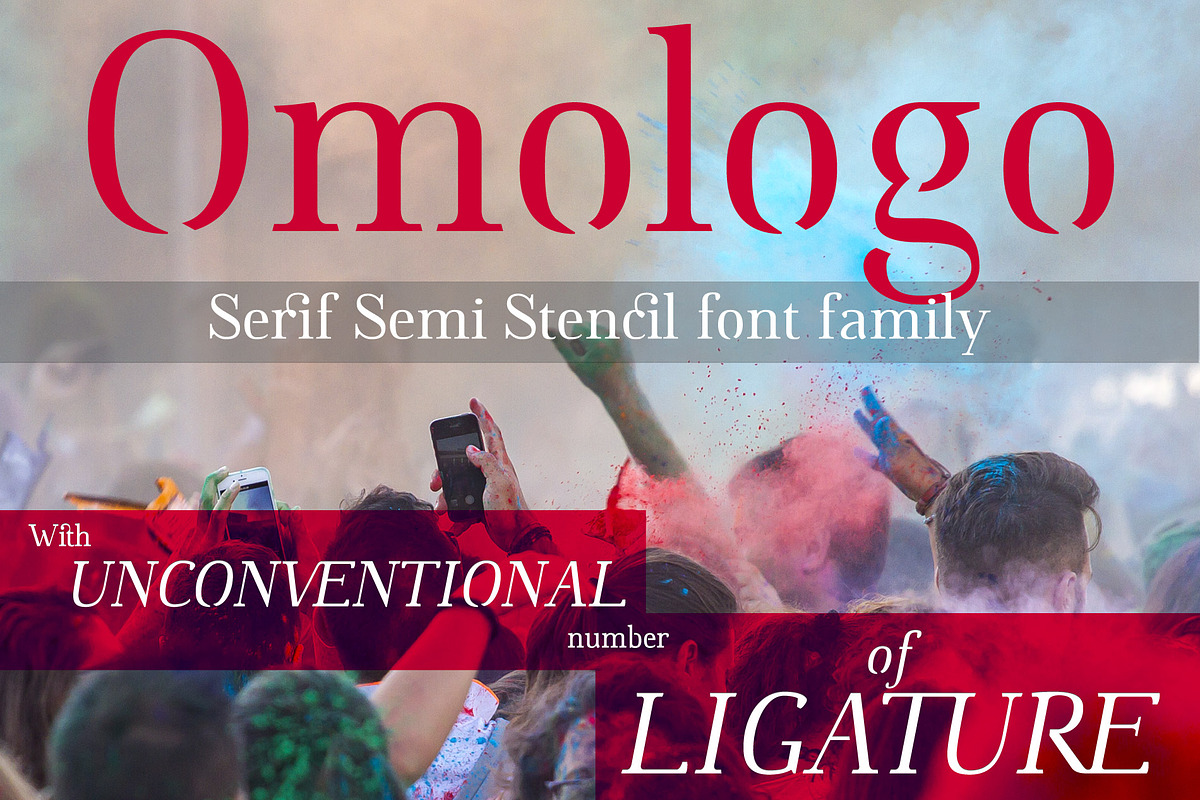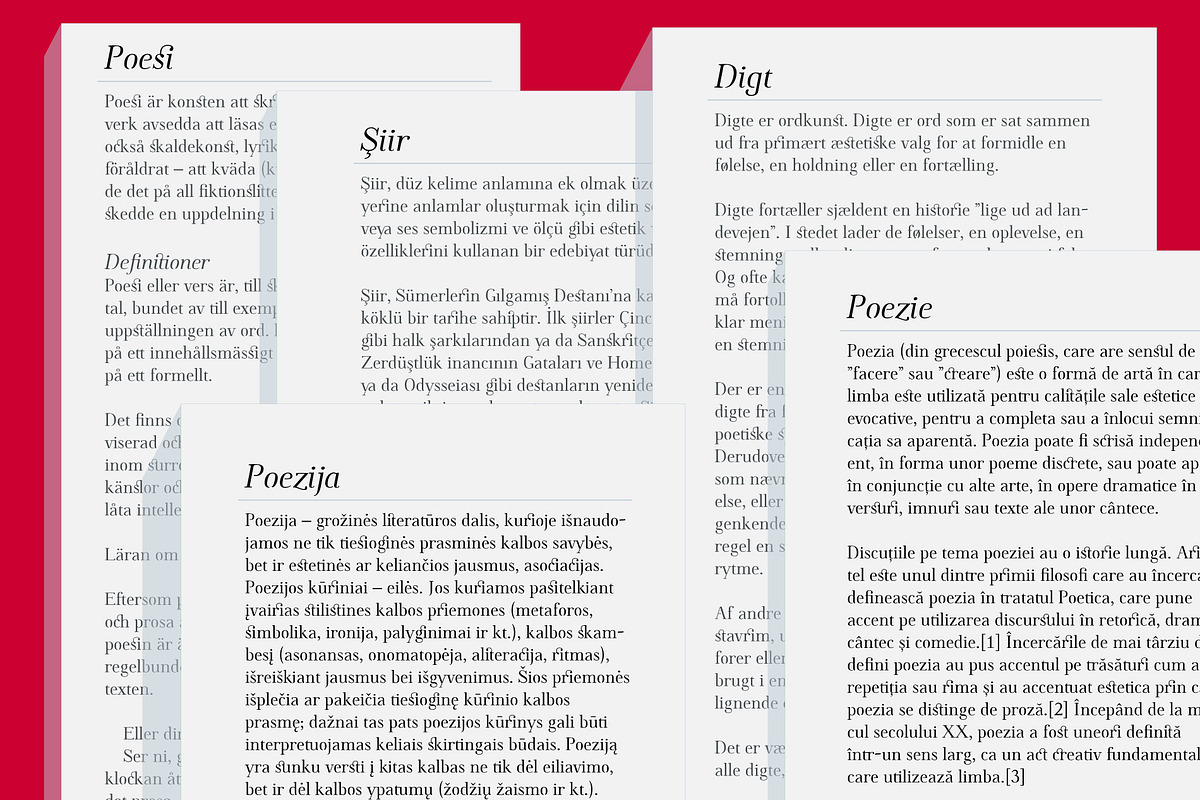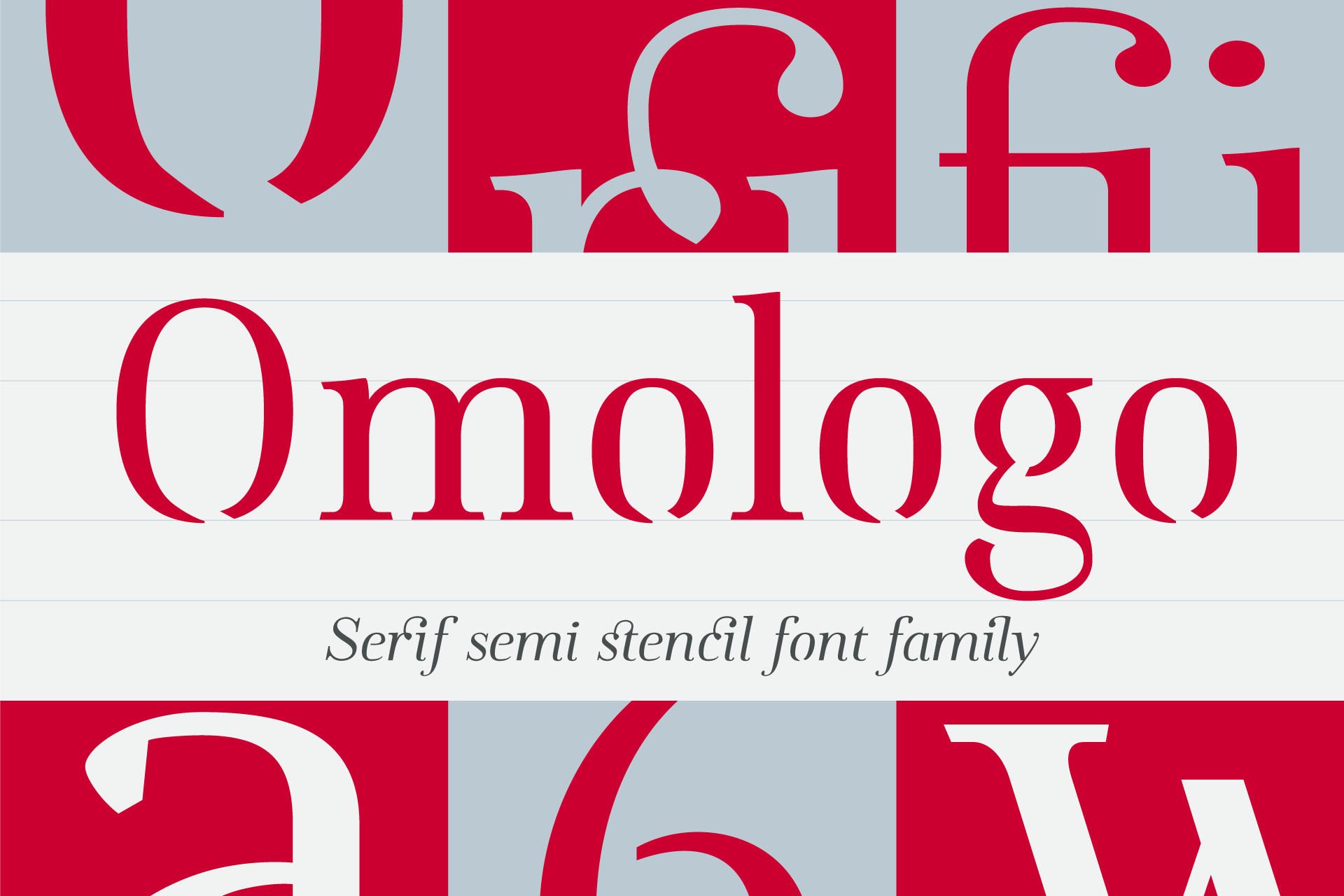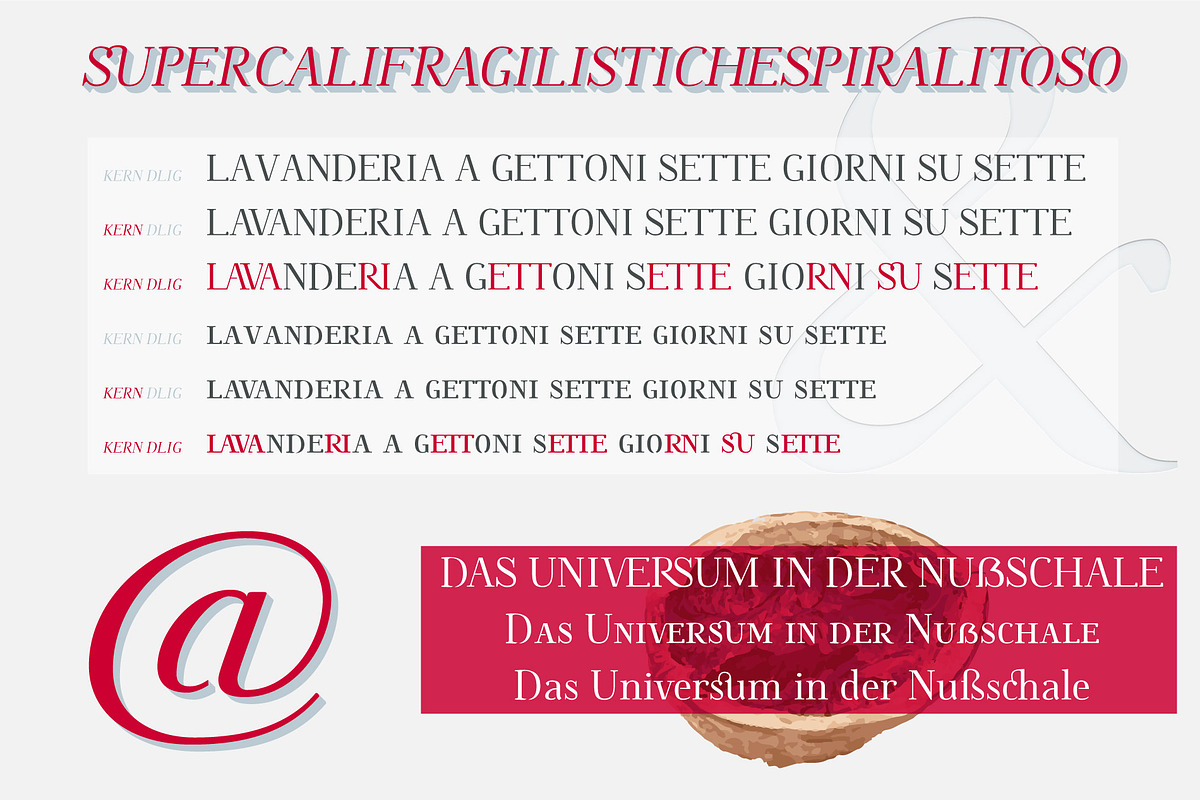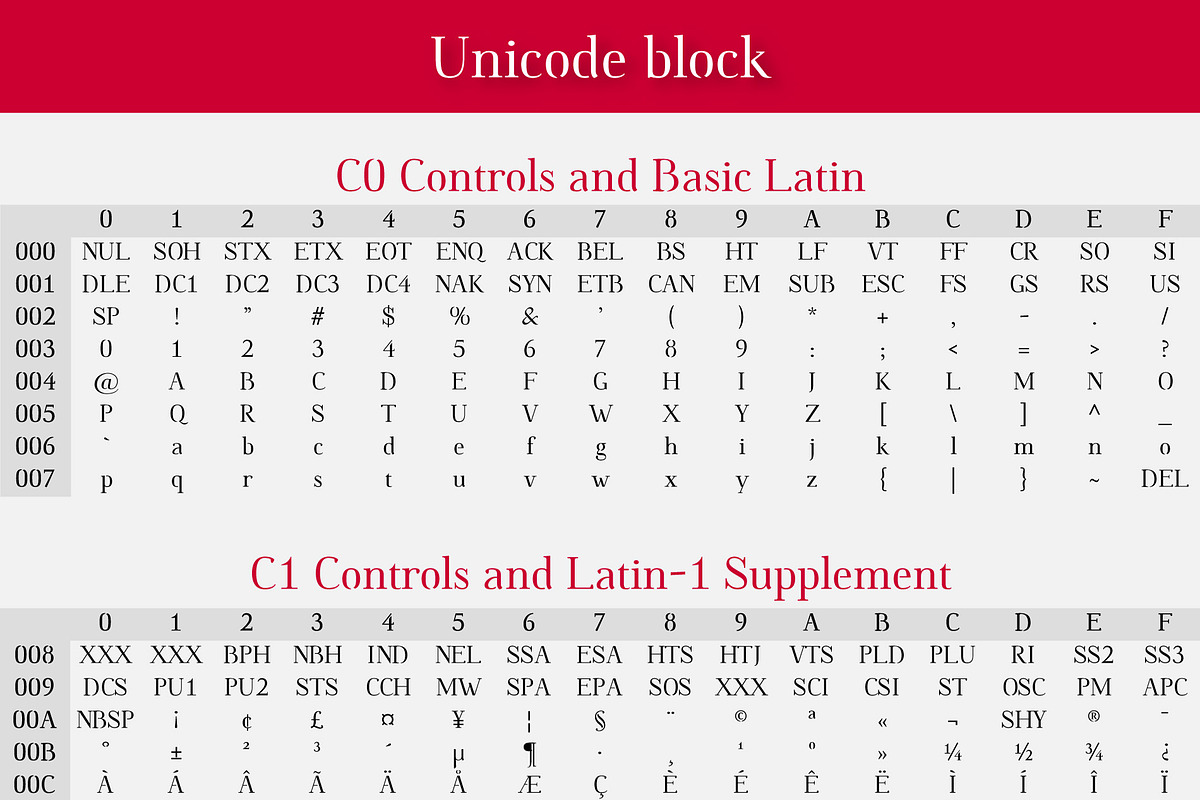
Omologo Serif Semi Stencil font
Omologo is a brand new Serif semi stencil font family based on "old style" typography, translated in modern era with Unconventional number of LIGATURE. A mix of geometric forms, antique ligature and oblsolete (or forget?) gliphs.
Currently it comes in 2 styles: round and italic.
Each weight includes extended language support, ligatures and up to 2000 gliphs.
Opentype feature
- Standard + discretionary ligature (liga, dlig)
- Alternative style set (ss01, ss02)
- Small capital (c2sc, smcp)
- Lining + Oldstyle figure linear or tabular (lnum, onum)
- Numerator + Denominator + Subscript + Superscript (pnum, tnum, sups, subs)
- Fraction (frac)
- Kerning table (kern)
Omologo is incredibly useful on most of creative field like magazine, poster, book, composition and it's a great ingredient to have in every kitchen!